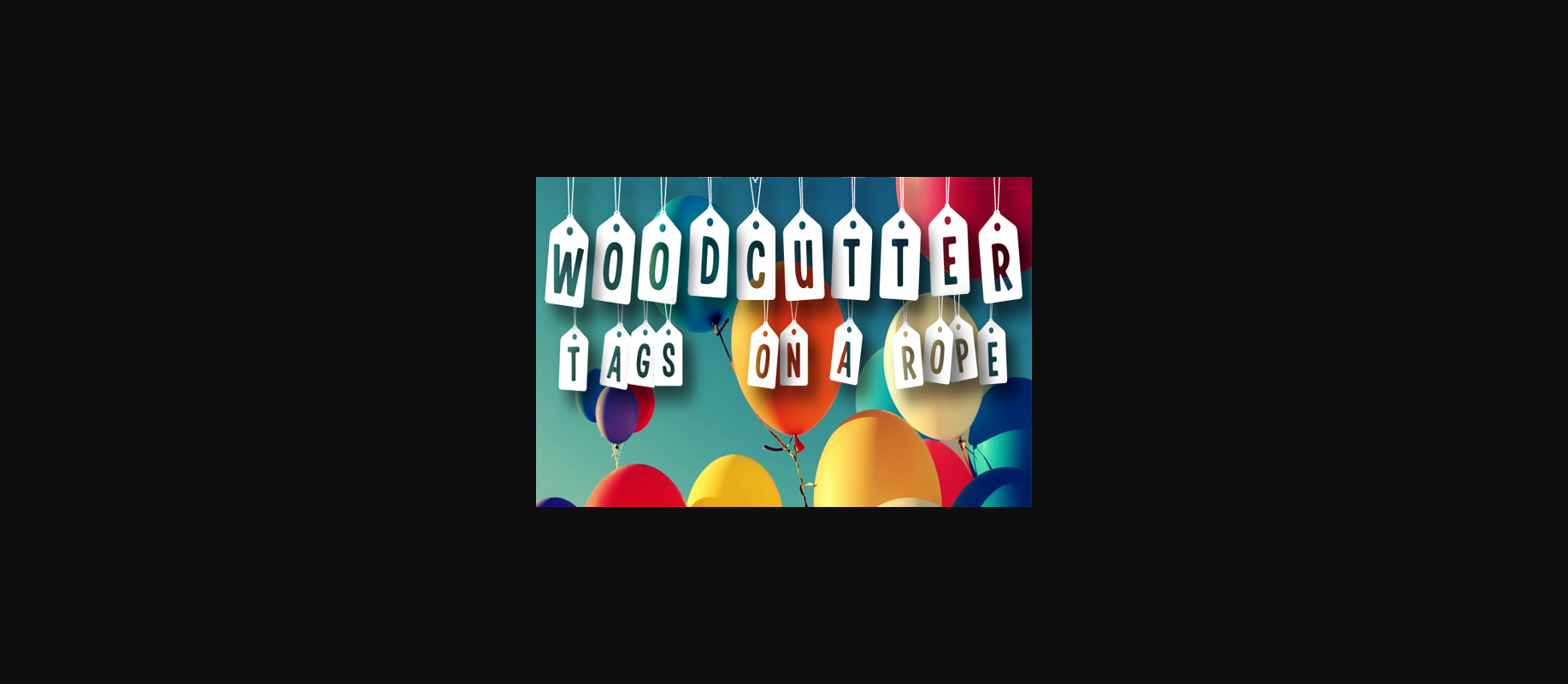
Woodcutter Tags on a Rope Font
About Woodcutter Tags on a Rope Font
Woodcutter Tags on a Rope is a uniquely beautiful decorative font with tons of eclecticism and fun! This a great option that adds a ton of fun charm to your celebratory or retail projects with an easy to use banner/tag set.